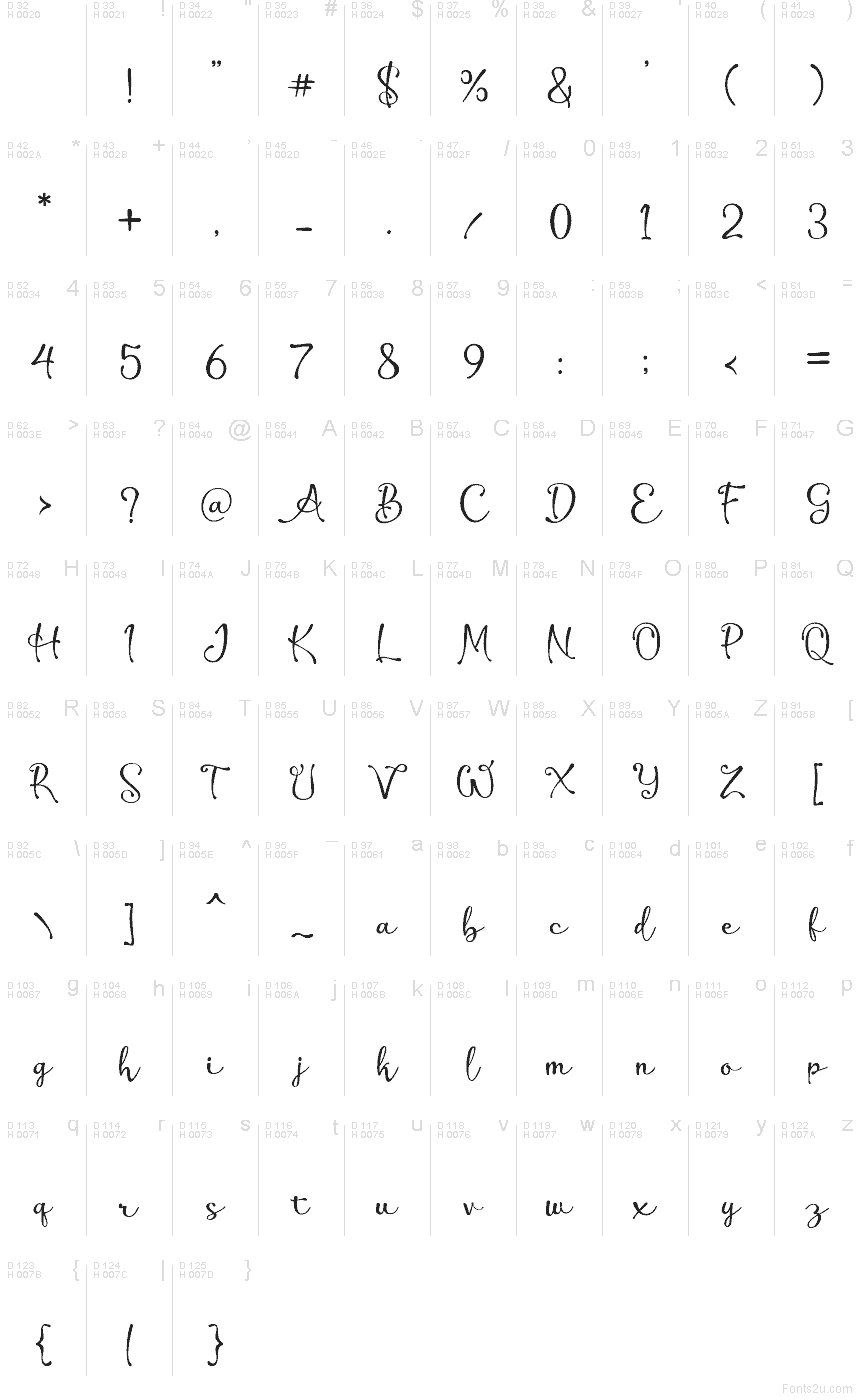
Abeela Regular
Abeela font is a free brush script typeface with a bold, inky flow and a signature long sweep that can double as an underline. The strokes feel hand-painted—slightly uneven and lively—so your words land with warmth instead of looking too polished. It reads like a quick, confident marker note, with just enough flourish to feel special.
Using Abeela, try it on boutique logos, café menus, beauty packaging, social posts, quote graphics, invites, and small product labels where personality matters. Keep Abeela larger for crisp curves, and pair it with a clean geometric sans (like Montserrat or Poppins) to let this free font do the talking.